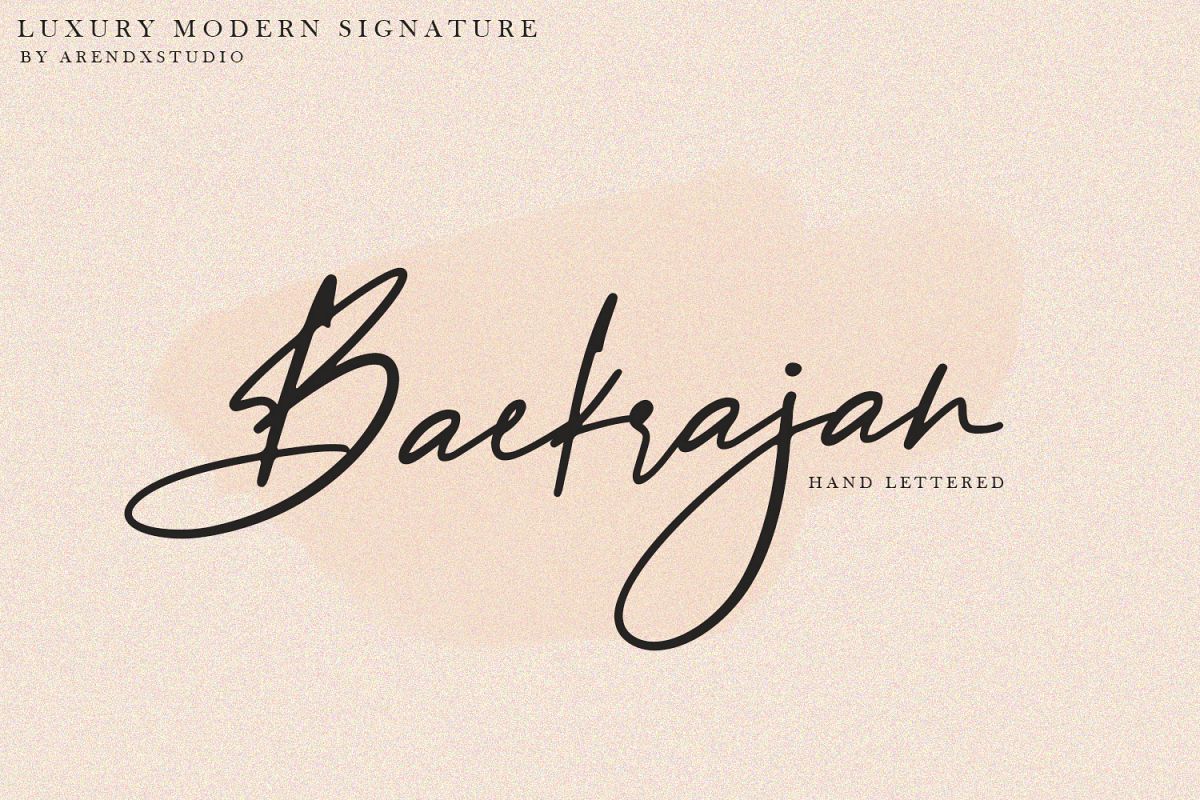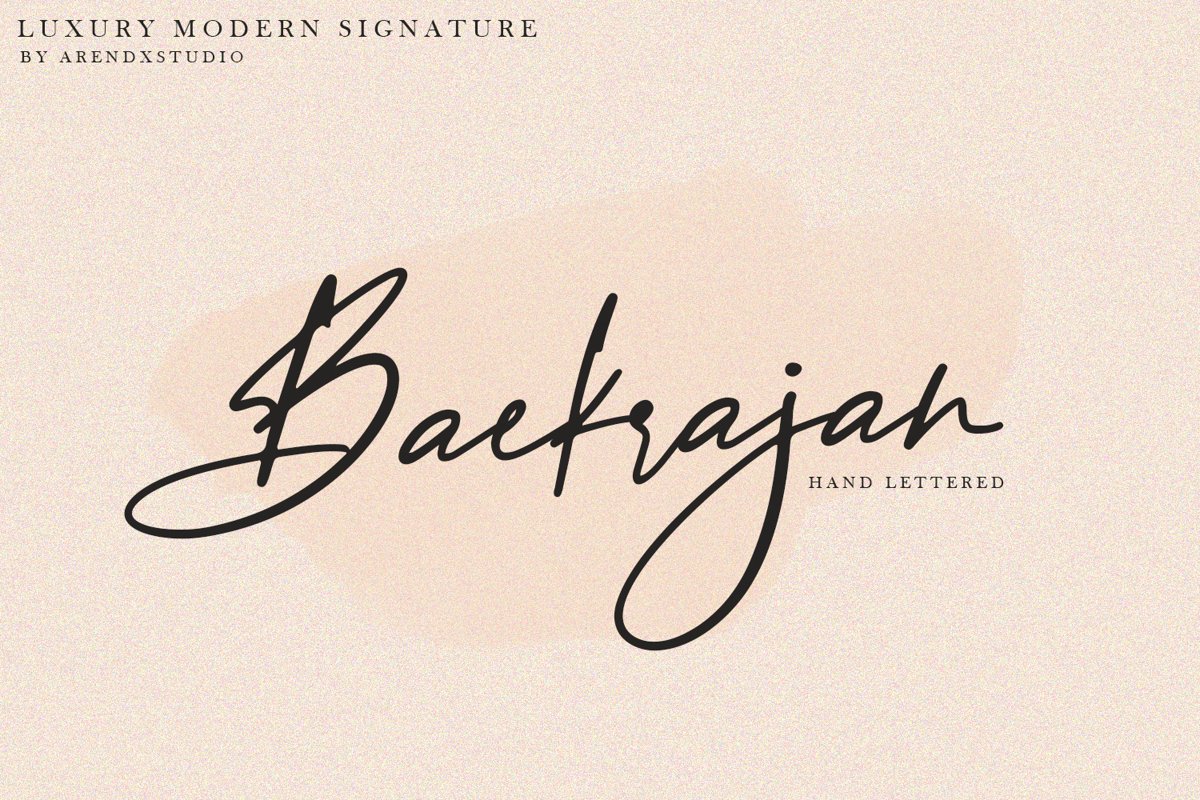
Baekrajan Luxury Modern Signature
Baekrajan
Baekrajan Luxury Modern Signature that is luxurious in a casual and distinctive style that is perfect for your branding design, and will also be very beautiful in your wedding invitations and business cards and especially for your brand name logotype
Baekrajan Luxury Modern Signature has beautiful Uppercase and Lowercase, figures and ligature standards that are very realisticThere it is! I really hope you enjoy it - comments & likes are always welcome and accepted. More importantly, don't hesitate to send a message if you have a problem or question.Now just read this, go there and make it happen :)